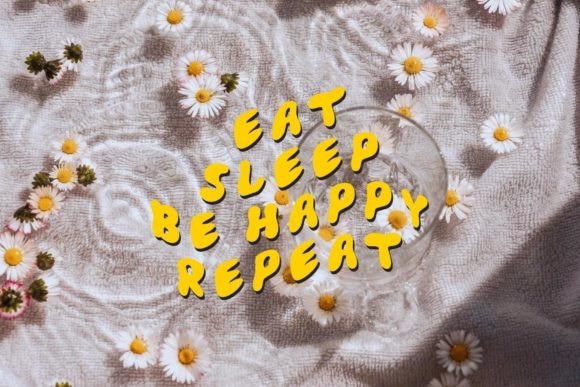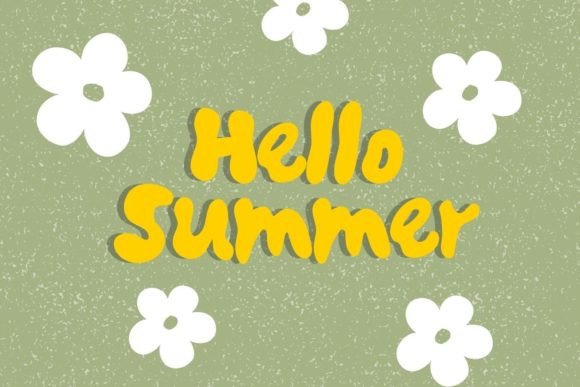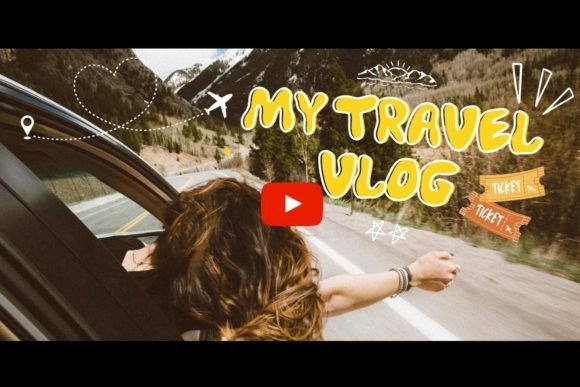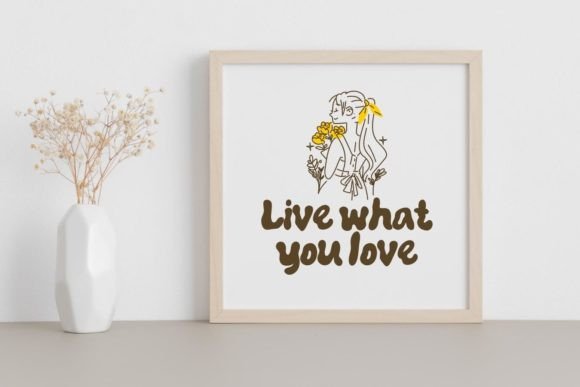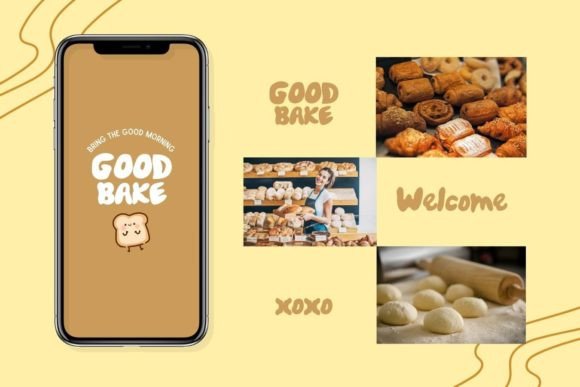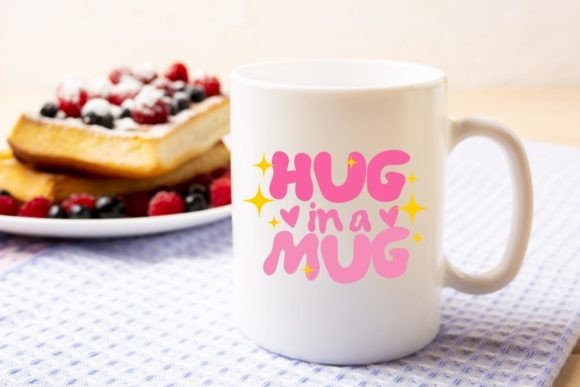
Introducing Happy Weekend: The Ultimate Distorted Fatty Font for Stunning Designs
Are you tired of using the same old fonts for your designs? Look no further! We’re excited to introduce “Happy Weekend,” a distorted fatty font that’s about to take your creations to the next level. With its unique and eye-catching letterforms, Happy Weekend is the perfect addition to your font collection, offering a friendly and easy-to-use vibe that’s sure to make your designs stand out.
Happy Weekend is designed to bring a modern and distinctive touch to your branding projects, merchandise, T-shirts, stickers, logos, and packaging. Its bold and playful appearance makes it an excellent choice for designers and crafters looking to add a sense of fun and excitement to their work. Whether you’re working on a personal project or a client’s, Happy Weekend is the perfect font to help you unleash your creativity and make your designs unforgettable.
What Makes Happy Weekend So Special?
So, what sets Happy Weekend apart from other fonts? Here are just a few features that make it a must-have for designers and crafters:
- Unique and Eye-Catching Letterforms: Happy Weekend boasts a distinctive and distorted fatty font style that’s sure to grab attention. Its letterforms are carefully crafted to provide a friendly and approachable vibe, making it perfect for a wide range of design applications.
- Bold and Playful Appearance: Happy Weekend’s bold and playful appearance makes it an excellent choice for designs that require a bit of personality. Whether you’re creating branding materials, merchandise, or packaging, this font is sure to add a touch of fun and excitement to your work.
- Versatile and Captivating: Happy Weekend is a versatile font that’s perfect for a wide range of design applications. Its captivating appearance makes it an excellent choice for designers and crafters looking to create stunning and unforgettable designs.
How to Use Happy Weekend in Your Designs
Using Happy Weekend in your designs is easy! Here are a few tips to get you started:
- Branding Projects: Use Happy Weekend to add a modern and distinctive touch to your branding materials, such as logos, business cards, and letterheads.
- Merchandise: Happy Weekend is perfect for creating eye-catching merchandise, such as T-shirts, stickers, and tote bags.
- Packaging: Add a touch of fun and excitement to your packaging designs with Happy Weekend. Its bold and playful appearance makes it an excellent choice for product labels, packaging inserts, and more.
Why Choose Happy Weekend?
With so many fonts to choose from, why should you choose Happy Weekend? Here are just a few reasons:
- Easy to Use: Happy Weekend is an easy-to-use font that’s perfect for designers and crafters of all skill levels.
- Unique and Eye-Catching: Happy Weekend’s unique and eye-catching letterforms make it an excellent choice for designers looking to create stunning and unforgettable designs.
- Versatile: Happy Weekend is a versatile font that’s perfect for a wide range of design applications.
In conclusion, Happy Weekend is the ultimate distorted fatty font for designers and crafters looking to add a touch of fun and excitement to their work. With its unique and eye-catching letterforms, bold and playful appearance, and versatile design, Happy Weekend is the perfect addition to your font collection. So why wait? Get ready to unleash your creativity and create stunning and unforgettable designs with Happy Weekend!